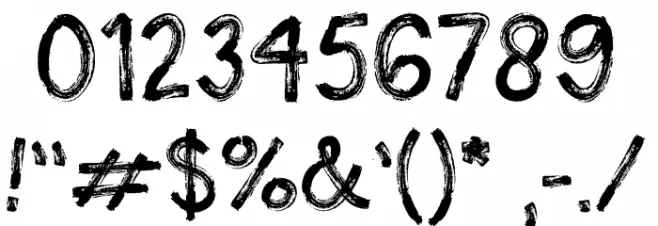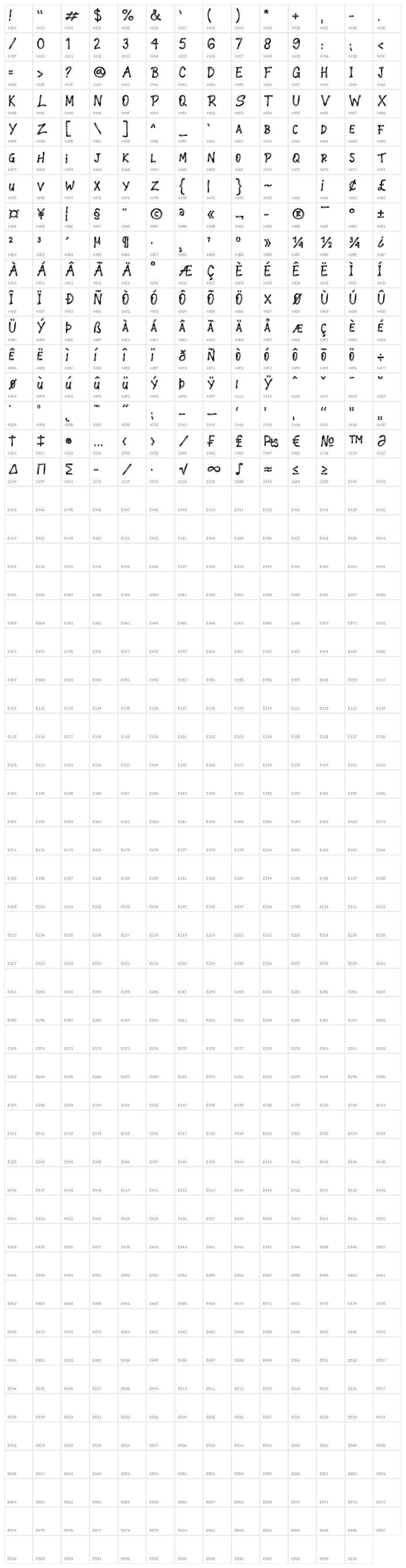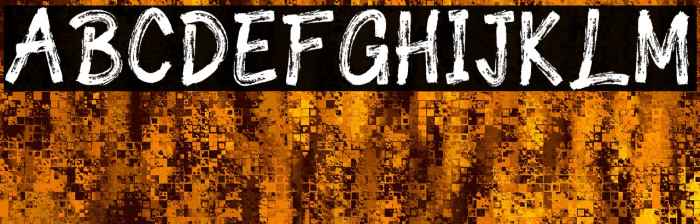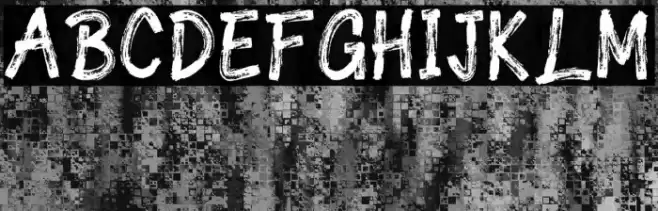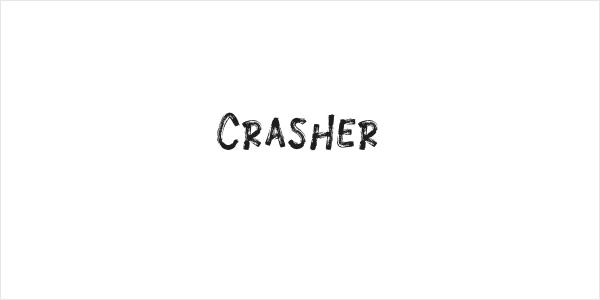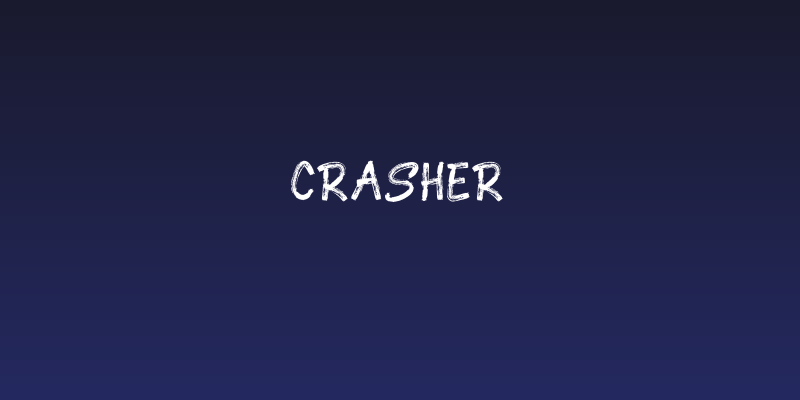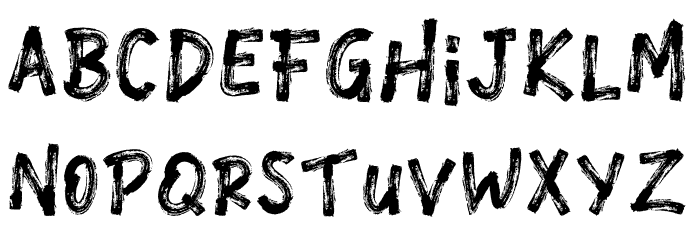
Crasher Font
Crasher Description
This font features a bold and expressive brush style, characterized by its rough, textured strokes that give it a dynamic and energetic appearance. The uppercase and lowercase letters maintain a consistent height, with slight variations in width that add to its handcrafted feel. The numbers and special characters follow the same brush-like texture, ensuring uniformity across all glyphs. This font's unique style makes it stand out, offering a raw and artistic vibe that is both modern and edgy. Its imperfect lines and bold presence make it suitable for projects that require a touch of creativity and individuality.